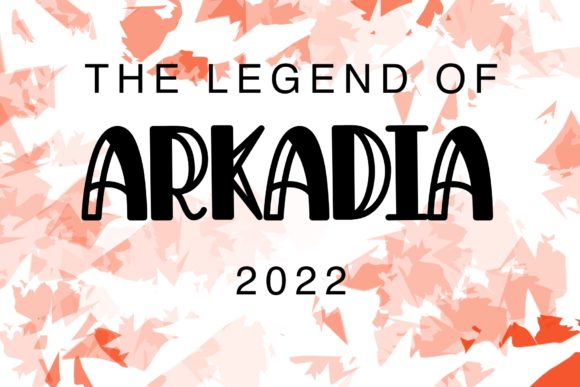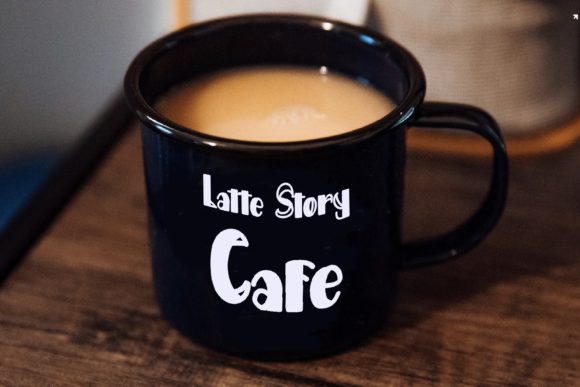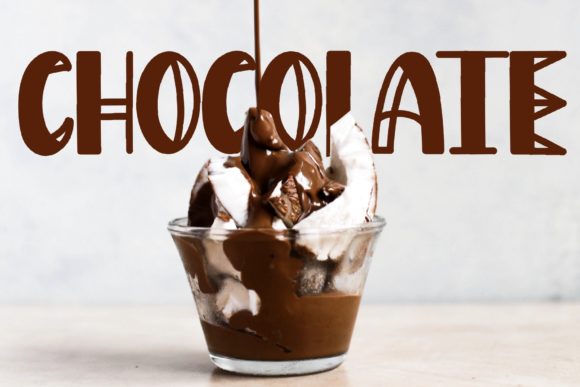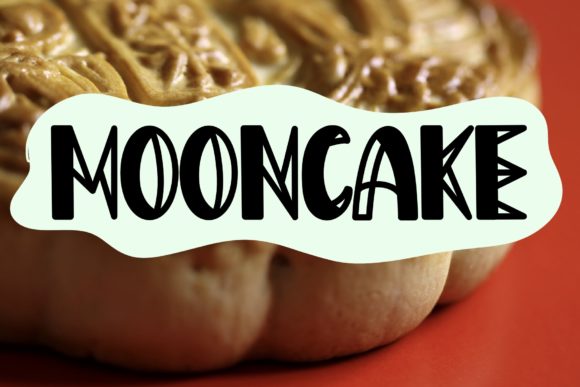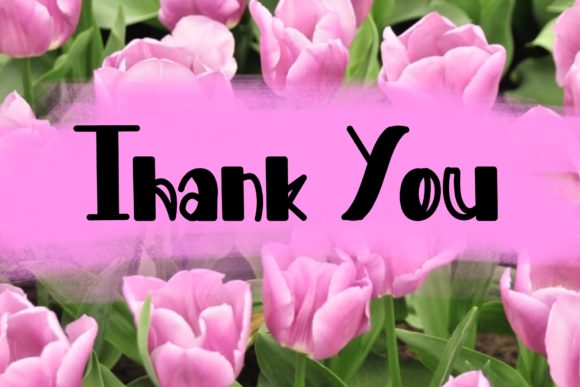
Introduction to Oscarina Font Font
Fonts play a crucial role in design, and the Oscarina Font font is a typeface that brings both character and versatility to any project. Whether you’re working on a branding project, a website, or a print design, the Oscarina Font font offers a unique style that can elevate your work.
Oscarina is a bold and friendly display font.
You can use this font on wedding invitations, thank you cards, quotes, greeting cards, logos, business cards and every other design which needs a simple and fun touch .
Key Features of Oscarina Font Font
Why Choose Oscarina Font Font?
The Oscarina Font font is more than just a typeface – it’s a design tool that helps you communicate your message with style and clarity. Its unique character set and versatile design make it suitable for a wide range of applications, from elegant invitations to bold headlines.
With its carefully crafted letterforms and balanced proportions, the Oscarina Font font ensures readability and visual appeal across all mediums.
What makes Oscarina Font font special?
The Oscarina Font font stands out with its unique design, exceptional readability, and versatility across various design applications.